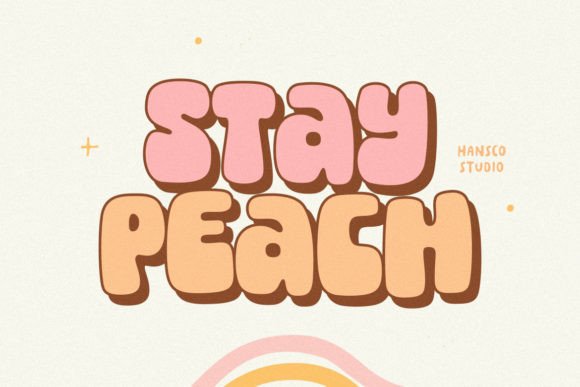
Stay Peach: A Bold Retro Serif for Modern Campaign Design
The clock is ticking. It’s 4 PM on a Tuesday, and the creative team needs three variations of a promotional graphic by morning. The campaign is for a mid-week flash sale, but we don’t want it to look like every other discount banner flooding the feed. We need something that stops the scroll, feels nostalgic yet fresh, and carries enough weight to command attention without shouting. That’s when I opened the font library and pulled up Stay Peach. As a marketing designer who spends half my day worrying about legibility on mobile screens and the other half trying to build brand consistency across disparate platforms, finding a typeface that bridges the gap between retro charm and modern clarity is rare. Stay Peach isn’t just another decorative display font; it’s a strategic tool that brings a specific, confident energy to digital assets.
First Impressions: The Visual Personality of Stay Peach
When you first load Stay Peach into your design software, the immediate takeaway is its bold, retro serif structure. It doesn’t try to be subtle. This is a display font designed to make statements. The letterforms have a clean, geometric backbone that feels surprisingly contemporary despite its vintage roots. It strikes a balance that many designers struggle with: it feels warm and approachable but maintains a professional edge. In the context of brand identity, this kind of personality is gold. It suggests reliability with a touch of playful sophistication.
What truly sets Stay Peach apart from other serif fonts in the fonts category is its ligature feature on capital letters. This isn’t just a cosmetic flourish; it changes how text interacts with itself. When you set headlines in all caps, the ligatures create unique connections between letters that prevent the text from looking blocky or disjointed. For a social media strategist, this means your headers look custom-tailored rather than generic. It adds a layer of visual interest that encourages the eye to linger, which is crucial when you are competing against fast-scrolling content on Instagram or TikTok.
Testing Stay Peach in Real Campaign Workflows
I put Stay Peach through its paces during a recent product teaser launch. The goal was to create a cohesive set of assets: an email header, a YouTube thumbnail, a series of Instagram posts, and a Pinterest pin. Here is how the typeface performed in each scenario.
- YouTube Thumbnails: The primary challenge here is visibility at small sizes. Stay Peach’s bold weight holds up well against busy background images. Because it is a creative font with high contrast, it pops against both light and dark backgrounds. However, I kept the text short—two to four words max—to ensure it remained readable even when viewed as a tiny icon on a mobile device.
- Email Banners: For the newsletter header, we used Stay Peach for the main subject line. The retro aesthetic aligned perfectly with the brand’s "vintage-inspired" clothing line. The ligatures added a premium feel that elevated the entire email design, making it stand out in a crowded inbox. It worked best as a logo-style text element rather than body copy.
- Social Media Graphics: On Instagram, we created a quote graphic series. Using Stay Peach for the key phrases allowed us to maintain visual hierarchy. The font’s natural elegance meant we didn’t need excessive embellishments or drop shadows. It communicated the message clearly, relying on the strength of the typography alone. This is a huge time-saver for content creators who need to produce volume without sacrificing quality.
- Pinterest Pins: Pinterest is a visual search engine, so text overlay is critical. Stay Peach provided excellent readability for our "How-To" guides. The serif details helped guide the eye down the page, supporting the user journey from hook to call-to-action.
Strategic Typography: Readability and Hierarchy
One of the most common mistakes marketers make is using display fonts for long-form text. Stay Peach is unequivocally a premium font intended for headlines, subheads, and short copy. Trying to use it for paragraphs will result in reader fatigue and poor engagement. Its strength lies in its ability to grab attention quickly. In web design or landing page headers, it serves as an excellent anchor for the visual hierarchy.
When designing for mobile, where screen real estate is limited, Stay Peach demands respect for spacing. Because the characters are bold and often feature connected forms, tight kerning can cause the letters to bleed into one another, especially on lower-resolution screens. I found that adding generous padding around the text improved perceived value and readability significantly. This is particularly important for digital ads where users might only glance at the image for a fraction of a second. Clear, airy layouts featuring Stay Peach tend to perform better because they reduce cognitive load.
However, there are situations where Stay Peach is not the right choice. If you are designing formal corporate communications, legal disclaimers, or dense informational sheets, this font may feel too casual or stylized. It lacks the neutral neutrality required for serious, data-heavy contexts. Similarly, for packaging design where space is extremely constrained and fine print is necessary, you would need a more compact, highly legible sans serif font for the secondary information.
Pairing Strategies for Maximum Impact
No typeface exists in isolation, and staying consistent with your modern typography system is key to building trust. Stay Peach pairs exceptionally well with clean, minimalist sans serif fonts for body text. The contrast between the bold, retro serif headline and a simple, functional sans serif creates a dynamic tension that is visually pleasing. Think of pairing it with fonts like Helvetica Now, Montserrat, or Lato. This combination ensures that while the headline grabs attention, the supporting text remains easy to read.
In summary, Stay Peach is a versatile, high-impact addition to any designer’s toolkit. It brings a distinct retro-modern flair that cuts through the noise of digital advertising. By using it strategically for headlines and display text, and pairing it with clean supporting typography, you can create campaign visuals that are not only beautiful but also effective at driving engagement. Whether you are launching a new online shop, promoting a webinar, or refreshing your social media presence, this typeface offers the boldness and clarity needed to connect with your audience.